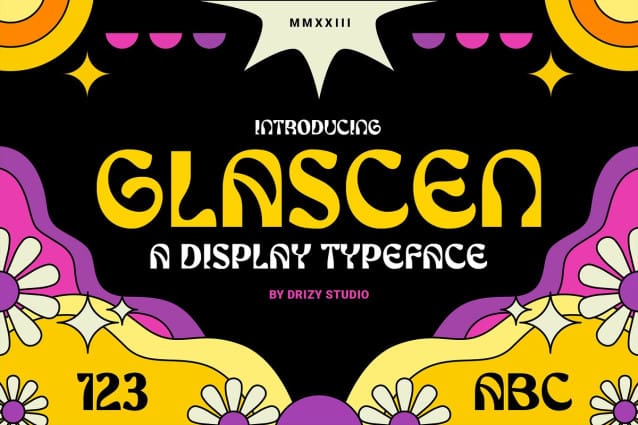
Glascen Display Font
Glascen Display Font, A retro Psychedelics font captures the essence of the 60s and 70s counterculture movements, with its distinctive and vibrant design. This font is a visual trip back in time, evoking the free-spirited, colorful, and mind-expanding nature of the era.